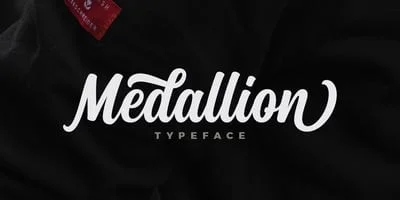
Medallion Font
Medallion Font is perfect for award ceremony programs, prestigious achievement certificates, championship tournament graphics, luxury medal engraving, honor society communications, and distinguished recognition materials. Its prestigious character makes it ideal for Olympic organizations, academic institutions, military honors departments, luxury trophy manufacturers, and any application requiring ceremonial typography that conveys distinguished achievement, prestigious recognition, and the timeless honor of earning medals and awards for exceptional excellence.
Medallion Font is exciting because it captures the prestigious honor and distinguished achievement represented by medals through elegantly crafted letterforms that embody the weight of accomplishment and the dignity of recognition ceremonies. Its noble proportions and award-inspired details reflect the proud tradition of honoring excellence and the profound satisfaction that comes from earning distinguished recognition for outstanding achievement, making it perfect for organizations celebrating human accomplishment. The font's medallion character transforms text into symbols of earned honor.
Medallion Font family includes achievement-inspired weight variations typically featuring Light, Regular, Medium, and Bold options with ceremonial styling that maintains prestigious authenticity. The family often incorporates award symbols, ceremonial ornaments, and honor-related elements designed for recognition applications, providing designers with comprehensive tools for creating authentic, medal-focused typographic compositions.
When selecting prestigious recognition typography solutions, Medallion Font represents an exceptional choice for award and achievement projects. This distinguished typeface brings instant ceremonial authenticity to any design, making it invaluable for award organizations, educational institutions, and recognition programs celebrating human excellence. Whether you're developing championship award materials, creating academic achievement certificates, or designing prestigious recognition campaigns, Medallion Font provides the ceremonial dignity and prestigious authenticity essential for honoring exceptional achievement in today's accomplishment-focused recognition marketplace.